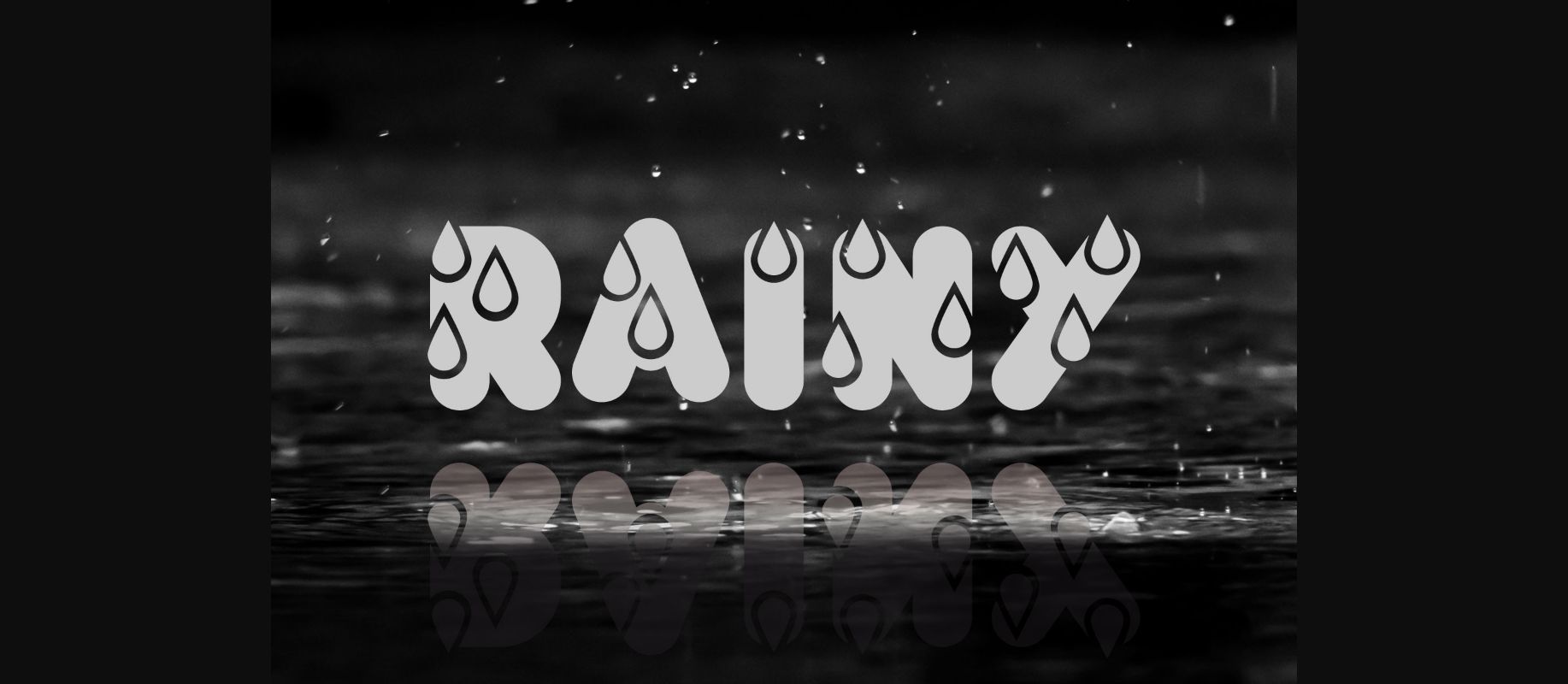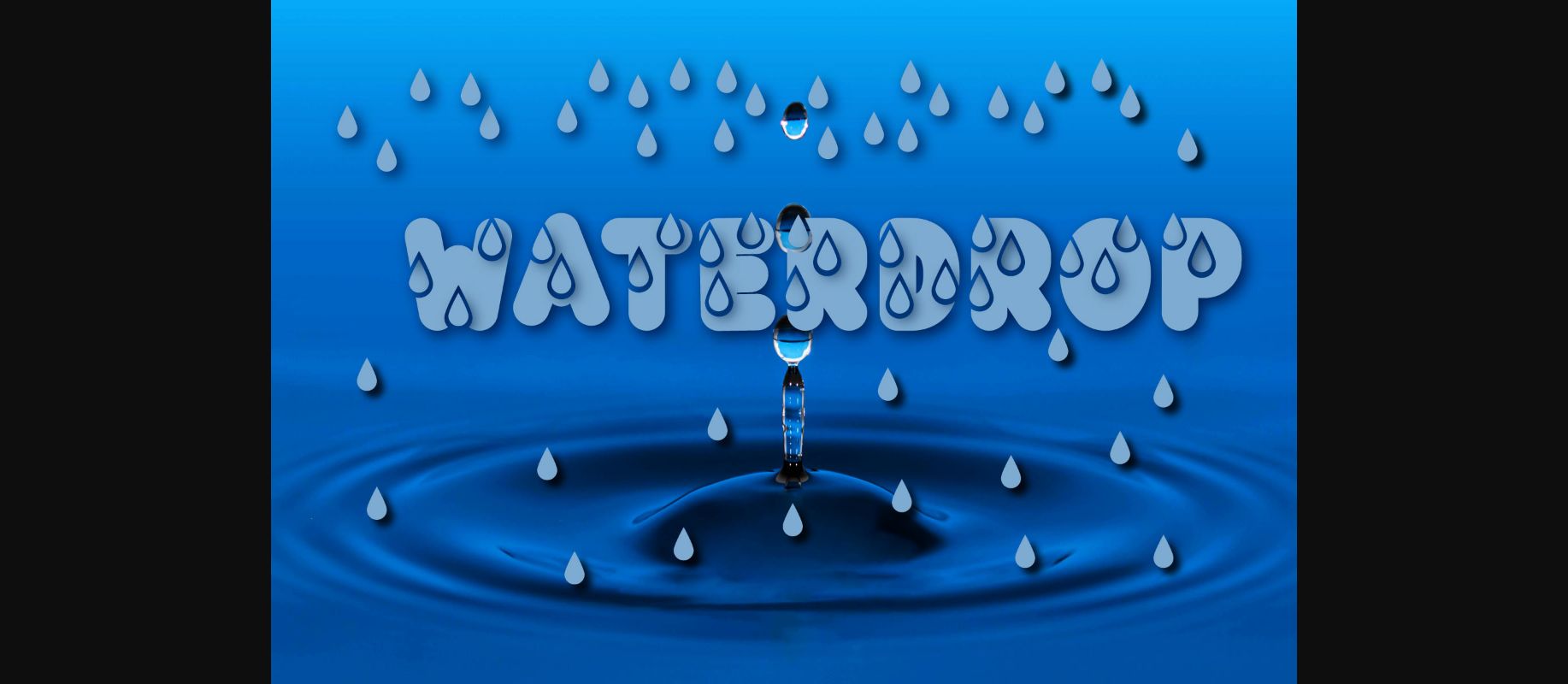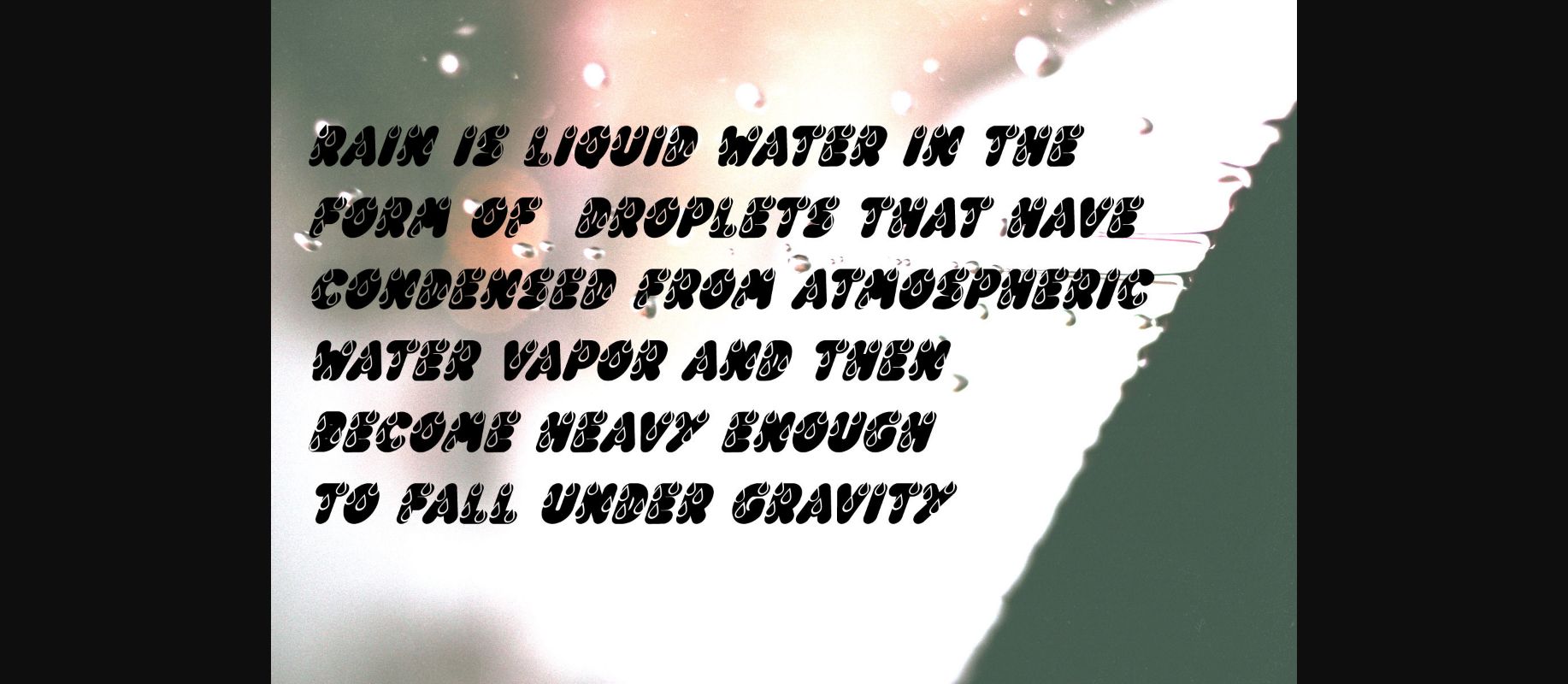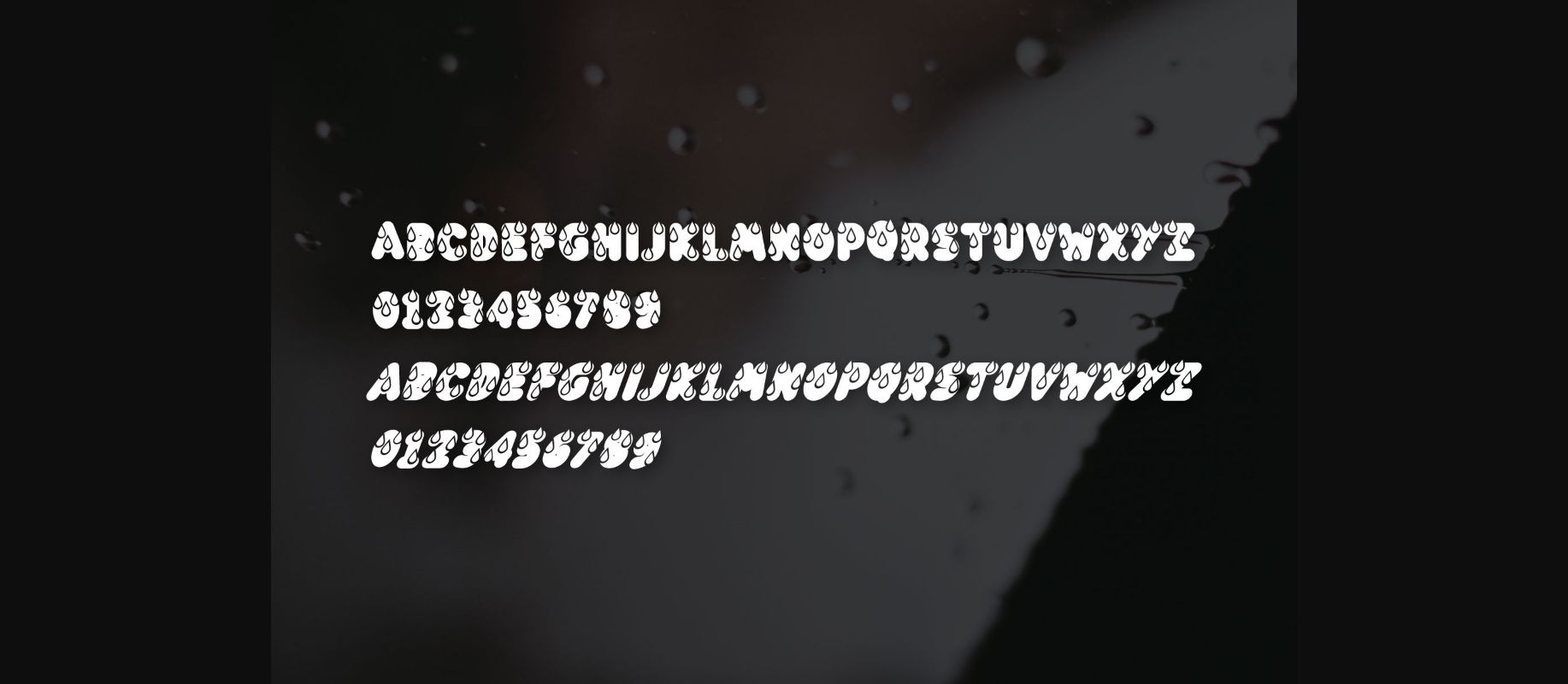
About Rainy Font
Rainy is a stunning decorative font that looks chunky and fun. With lovely raindrops all over its characters, this font will ensure wonderful book titles, children’s book covers, creative apparel designs, and so much more!